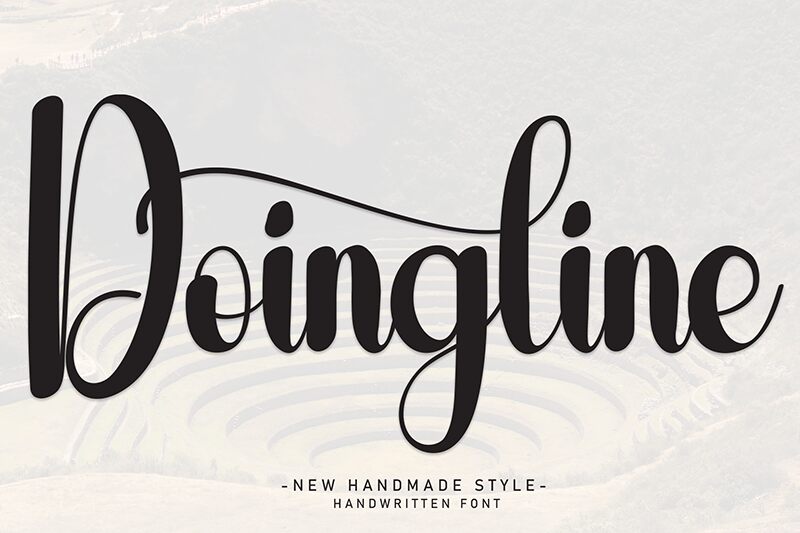
Doingline
Doingline font is a handwritten font created by Andi Moz with unique characters that appear as lovely and artistic doodles that connect. This free display typeface mimics real handwriting in which it can become jagged and irregular. Doingline creates the perfect balance between clean letters with thick strokes and irregular lines.
With its cute, bubbly, and slightly messy nature, this font can add warmth to many projects. Use it for book covers, invites, cards, certificates, ads, headings, social media posts or pages among others. In addition to branding material like logos and slogans or any personal design you’re working on.